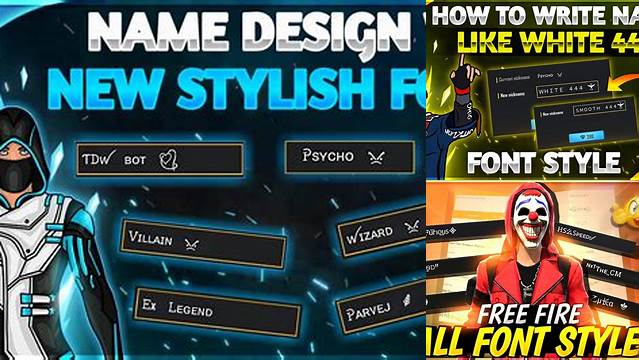
White 444 Font Generator For Stylish Free Fire Names
Hey guys! Are you looking to spice up your Free Fire name with a cool, stylish font? Specifically, are you after that sleek, white 444 aesthetic? You've come to the right place! In this article, we're diving deep into the world of Free Fire name styling, focusing on how you can generate that crisp white 444 look for your in-game name. We'll cover everything from why this style is so popular to the various tools and methods you can use to achieve it. So, buckle up and get ready to transform your Free Fire identity!
Why the White 444 Style is a Hit in Free Fire
The white 444 name style has become incredibly popular in Free Fire, and there are several reasons why. First and foremost, it's visually striking. The clean, white font stands out against the game's vibrant backgrounds and character skins, making your name easily noticeable. This can be a major advantage, especially in fast-paced matches where quick identification is key. Imagine you're in a squad battle; a distinctive name helps your teammates spot you instantly, improving coordination and teamwork. Beyond functionality, the white 444 style simply looks cool. It exudes a sense of sophistication and elegance, setting you apart from the crowd. Many players see it as a way to express their personal style and flair within the game. The number 444 itself also carries some mystique. In numerology, 444 is often associated with protection, encouragement, and inner strength. For some players, incorporating this number into their name adds a layer of meaning and symbolism. Furthermore, the white 444 style is relatively easy to achieve, thanks to the various font generators and tools available online. This accessibility has contributed to its widespread adoption among Free Fire players. You don't need any special skills or technical knowledge to create a stunning white 444 name; just a few clicks and you're good to go. The trend is also fueled by social media and popular streamers. When top players and influencers sport the white 444 style, their followers naturally want to emulate them. This creates a ripple effect, with more and more players adopting the style. The white 444 style isn't just a visual trend; it's also a way to connect with the Free Fire community. It's a shared aesthetic that many players appreciate and recognize, fostering a sense of belonging and camaraderie. Choosing the white 444 style is a statement. It tells other players that you pay attention to detail, that you care about your in-game appearance, and that you're part of a popular trend. In a game where personalization is highly valued, the white 444 name style is a simple yet effective way to make your mark.
Top Free Fire Name Font Generators
When it comes to generating stylish fonts for your Free Fire name, there's no shortage of fantastic tools available online. These font generators make it incredibly easy to create unique and eye-catching names, even if you don't have any design skills. Let's explore some of the top options you can use to achieve that perfect white 444 style. One of the most popular and user-friendly options is Nickfinder. This website offers a wide range of fonts and symbols that you can mix and match to create your ideal name. It's incredibly simple to use: just type in your desired name, and Nickfinder will generate a variety of stylish options for you to choose from. You can then copy and paste your favorite style directly into Free Fire. Another excellent choice is LingoJam. LingoJam is a versatile tool that allows you to translate your name into various fancy fonts and symbols. It's perfect for creating names that stand out from the crowd. The interface is clean and intuitive, making it easy for anyone to use, regardless of their technical expertise. If you're looking for a generator that offers a bit more customization, Cool Text Fonts is a great option. This website provides a wide array of fonts, symbols, and decorative elements that you can use to personalize your Free Fire name. You can even adjust the size and color of your font to create a truly unique look. For those who prefer a more streamlined experience, FontGet is a fantastic choice. FontGet focuses on providing high-quality fonts that are easy to copy and paste into your game. It's a great option if you want a stylish name without having to wade through too many options. Another noteworthy tool is Fancy Text Generator. This website offers a vast collection of fancy fonts and symbols, allowing you to create a name that truly reflects your personality. The generator is updated regularly with new styles, so you'll always have fresh options to choose from. If you're on the go, many mobile apps offer similar font generation capabilities. Apps like Stylish Text and Fancy Font Keyboard are available for both Android and iOS devices. These apps allow you to create stylish text directly from your smartphone, making it easy to update your Free Fire name whenever inspiration strikes. When using any font generator, it's essential to ensure that the characters and symbols you choose are compatible with Free Fire. Some special characters may not display correctly in the game, so it's always a good idea to test your name before finalizing it. Most font generators allow you to preview your name in different styles, so you can see how it will look in the game. With so many fantastic font generators available, creating a stylish white 444 name for Free Fire is easier than ever. Experiment with different tools and styles to find the perfect look that represents you.
Step-by-Step Guide to Generating a White 444 Font
Creating a white 444 font for your Free Fire name might sound complicated, but it's actually a straightforward process, thanks to the numerous online tools available. Let's break down the steps to help you achieve that stylish look: The first step is to choose a font generator. As mentioned earlier, there are several excellent options, including Nickfinder, LingoJam, Cool Text Fonts, FontGet, and Fancy Text Generator. For this guide, we'll use Nickfinder as an example, but the process is similar for most other generators. Go to the Nickfinder website or your preferred font generator. You'll typically find a text input box where you can type your desired name. Enter your Free Fire name into the input box. This is the base name you want to style with the white 444 font. Once you've entered your name, the generator will automatically display various stylish font options. Scroll through the options to find a font that you like. Look for fonts that have a clean, crisp look, as these will best resemble the white 444 style. Many generators offer a preview feature, allowing you to see how your name will look in different fonts. Take advantage of this to ensure you're choosing a font that's visually appealing and easy to read. If you want to incorporate the number 444 into your name, you can either type it directly into the input box or look for font styles that already include the number in a stylish way. Some generators offer pre-designed 444 styles that you can easily add to your name. Once you've found a font style you like, you can customize it further by adding symbols or decorative elements. Many generators offer a selection of symbols, such as stars, hearts, and other special characters, that you can use to enhance your name. Be mindful of the symbols you choose, as some may not display correctly in Free Fire. It's always a good idea to preview your name with the symbols before finalizing it. After you've customized your name to your liking, the next step is to copy it. Most generators provide a copy button or allow you to select the text and copy it manually. Ensure that you copy the entire name, including any symbols or special characters. Now that you've copied your stylish name, you can paste it into Free Fire. Open the game and navigate to your profile settings. Look for the option to change your name. Paste the name you copied from the font generator into the name change field. Once you've pasted your name, preview it to ensure that it displays correctly in the game. If everything looks good, confirm the change. Keep in mind that changing your name in Free Fire may require diamonds, the game's premium currency. Be sure to have enough diamonds before attempting to change your name. And that's it! You've successfully generated a white 444 font for your Free Fire name. By following these steps, you can create a stylish and unique name that sets you apart from the competition. Experiment with different fonts, symbols, and customizations to find the perfect look that represents you.
Additional Tips for a Unique Free Fire Name
Creating a unique Free Fire name goes beyond just using a stylish font. While the white 444 style is popular, there are many other ways to make your name stand out. Here are some additional tips to help you craft a truly distinctive in-game identity. First and foremost, consider incorporating your personality into your name. Think about your interests, hobbies, or favorite characters from movies, books, or games. Using these as inspiration can help you create a name that's both meaningful and memorable. For example, if you're a fan of a particular anime, you could include a reference to it in your name. Or, if you have a favorite animal, you could incorporate its name or characteristics into your Free Fire alias. Another great way to make your name unique is to use a combination of letters, numbers, and symbols. Experiment with different arrangements to see what looks and sounds best. You could use numbers to replace letters (e.g., 4 for A, 3 for E) or add symbols to create a visual flair. Just be sure to choose symbols that are compatible with Free Fire and won't appear as blank spaces or boxes. If you're struggling to come up with ideas, try brainstorming with friends or using a name generator. There are many online tools that can generate random names based on your preferences. These generators can be a great source of inspiration, even if you don't end up using the exact name they suggest. Don't be afraid to get creative with your name. Think outside the box and try different approaches. You could use puns, wordplay, or even inside jokes to make your name more memorable. A clever and humorous name is sure to catch the attention of other players. When choosing a name, it's also important to consider its readability. A name that's too long or complex can be difficult for others to remember and pronounce. Aim for a name that's concise, easy to understand, and rolls off the tongue. You want other players to be able to say your name without struggling. In addition to readability, think about the overall aesthetic of your name. Does it match your personal style and the image you want to project in the game? A stylish and well-crafted name can make a strong impression on other players and enhance your overall gaming experience. Before finalizing your name, it's always a good idea to check if it's already taken. Free Fire has millions of players, so there's a chance that someone else may have already claimed the name you want. You can check availability by trying to create a new account with the name or by asking a friend to search for it in the game. Finally, remember that you can always change your name in Free Fire if you're not happy with your current one. While it may cost diamonds, it's a worthwhile investment if you feel your name doesn't represent you or if you simply want a fresh start. By following these tips, you can create a unique and memorable Free Fire name that sets you apart from the crowd. So, get creative, have fun, and let your personality shine through your in-game alias.
So there you have it, guys! Everything you need to know about generating a white 444 name style for Free Fire. From understanding its popularity to using the best font generators and adding your own unique flair, you're now equipped to create a name that truly represents you. Remember, your Free Fire name is your identity in the game, so make it count! Experiment with different fonts, symbols, and styles until you find the perfect combination. And don't be afraid to let your creativity shine. A well-crafted name not only looks cool but also helps you stand out and make a lasting impression on other players. Whether you stick with the classic white 444 style or venture into more personalized territory, the key is to have fun and express yourself. So go ahead, give those font generators a try, and transform your Free Fire name into a masterpiece. Happy gaming, and we'll see you on the battlefield with your awesome new moniker!